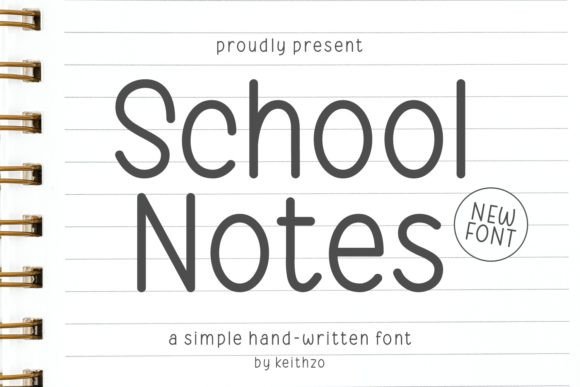
School Notes: A Whimsical Handcrafted Typeface for Creative Projects
There's a certain warmth to a handwritten note, a personal touch that digital fonts often struggle to replicate. School Notes captures that feeling with precision. This isn't just another script font; it's a carefully crafted typeface drawn with a single, continuous line, giving it an authentic, hand-lettered quality. Its personality is immediately apparent—playful, endearing, and casually cute. The slight imperfections and natural flow of the strokes lend it a charm that feels both nostalgic and fresh, making it a versatile asset for any designer or creator looking to inject personality into their work.
Where This Handwritten Font Truly Shines
The real value of School Notes lies in its application. It’s a premium font designed for projects where personality and approachability are key. Think beyond standard body text; this is a display font meant to command attention in headlines, logos, and branding elements. For small business owners, it’s perfect for creating a friendly, approachable brand identity. Imagine a bakery’s logo, a boutique’s packaging design, or the header of a heartfelt email newsletter—School Notes immediately sets a welcoming tone.
Its playful nature makes it a standout choice for:
When considering font pairing, School Notes works beautifully alongside clean, simple sans serif fonts. The contrast between its organic, flowing lines and the structured geometry of a modern sans serif creates a balanced and professional hierarchy. For a more classic look, pairing it with a subtle serif font can create an elegant yet approachable aesthetic. The key is to let School Notes be the star for headlines and accent text, while using a more neutral font for longer paragraphs to ensure readability.
Practical Guidance for Integrating School Notes
Choosing the right creative font involves more than just aesthetics. First, evaluate your project’s needs. School Notes excels in contexts where you want to evoke warmth, creativity, and a personal connection. It might not be the best fit for a formal corporate report, but it’s perfect for a creative agency’s portfolio or a lifestyle brand’s website.
Consider its impact on visual hierarchy. Its distinctive style naturally draws the eye, making it an excellent tool for guiding the viewer’s attention. Use it to highlight key messages, but be mindful of overuse. A little goes a long way. When used strategically, School Notes doesn’t just decorate; it communicates. It tells your audience that your brand values creativity, approachability, and a human touch. In a world saturated with sterile, generic typography, this handwritten font offers a refreshing dose of authenticity that can help your projects stand out and resonate on a deeper level.